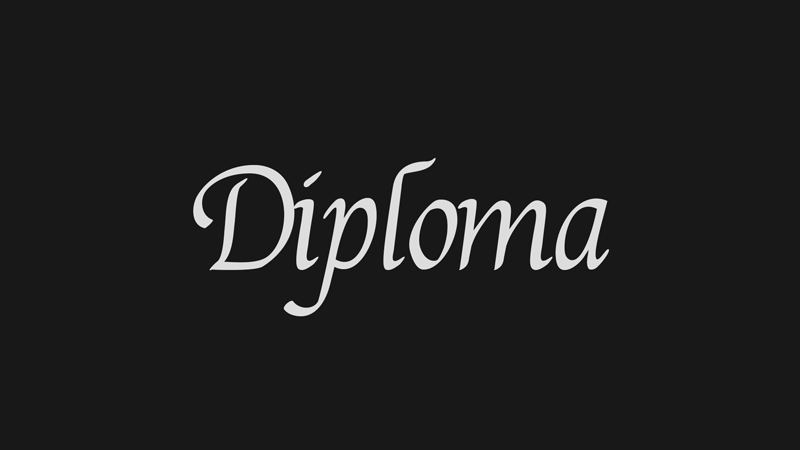
Font name: | LT Diploma |
Author: | LyonsType |
Note by LyonsType | |
A calligraphic font - usable for diplomas, certificates, and anything that has Chancery-esque fonts involved. Part of LyonsType Classics. |